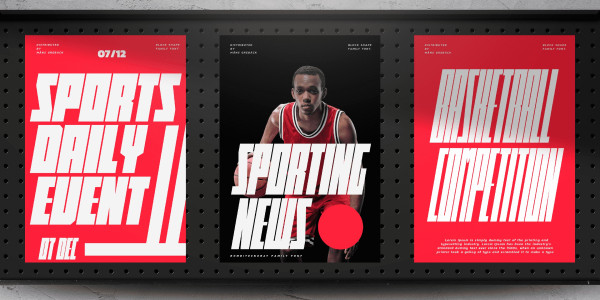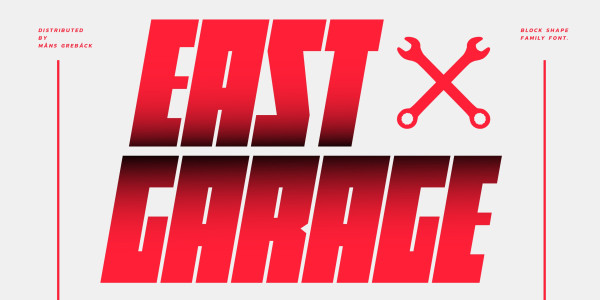
Rombi Technocrat Font
Rombi Technocrat Font is a geometric, heavy font that features a unique combination of square shapes and slanting angles. Inspired by the dynamics of forward movement and the rigidity of structured design, this italicized font family brings a sense of purpose and direction to your creative projects.